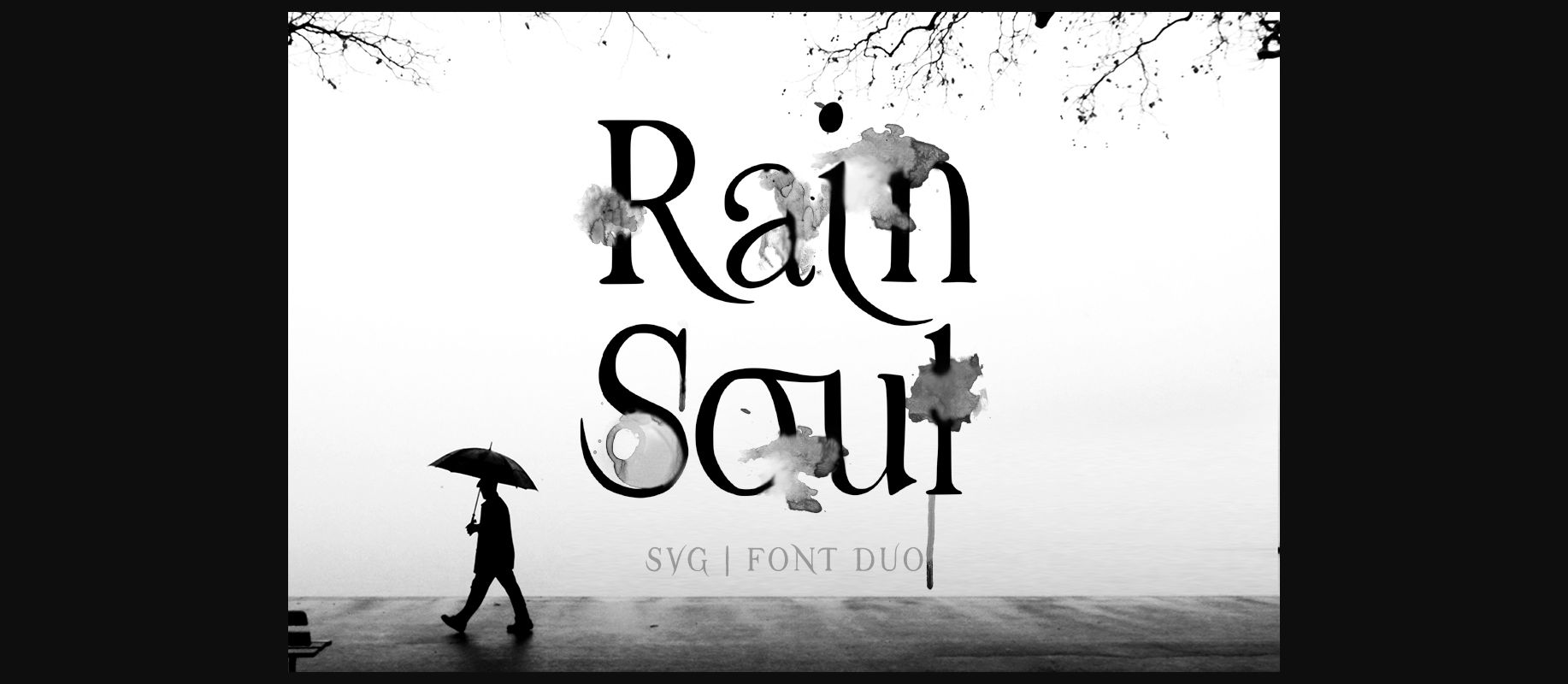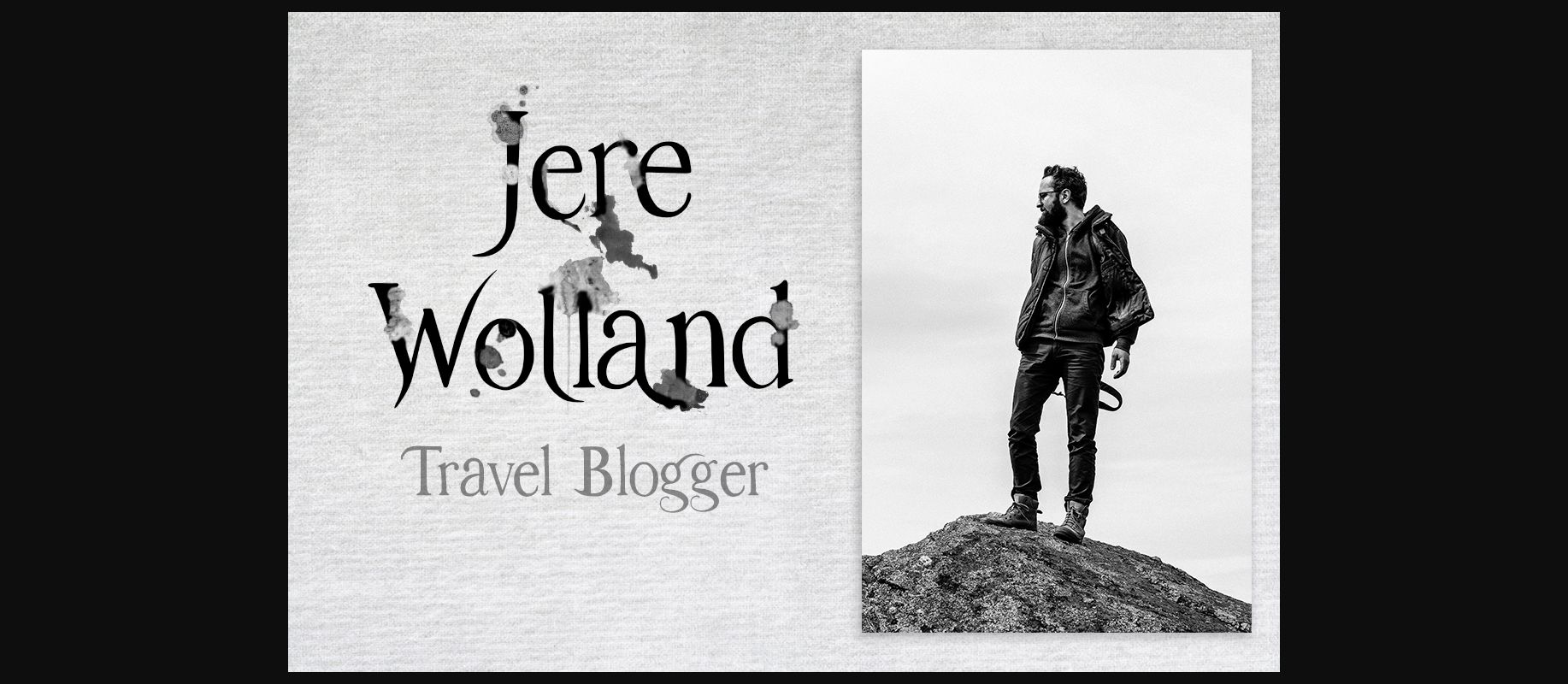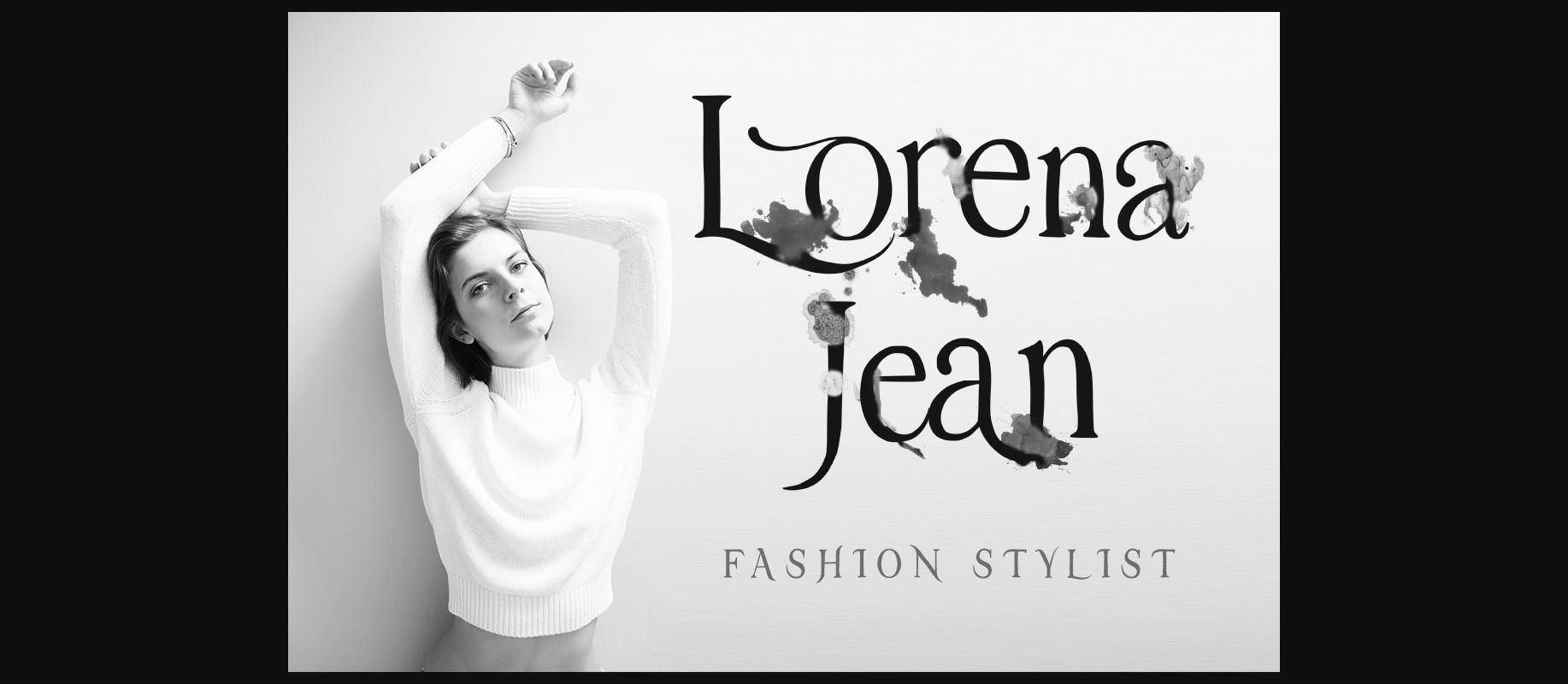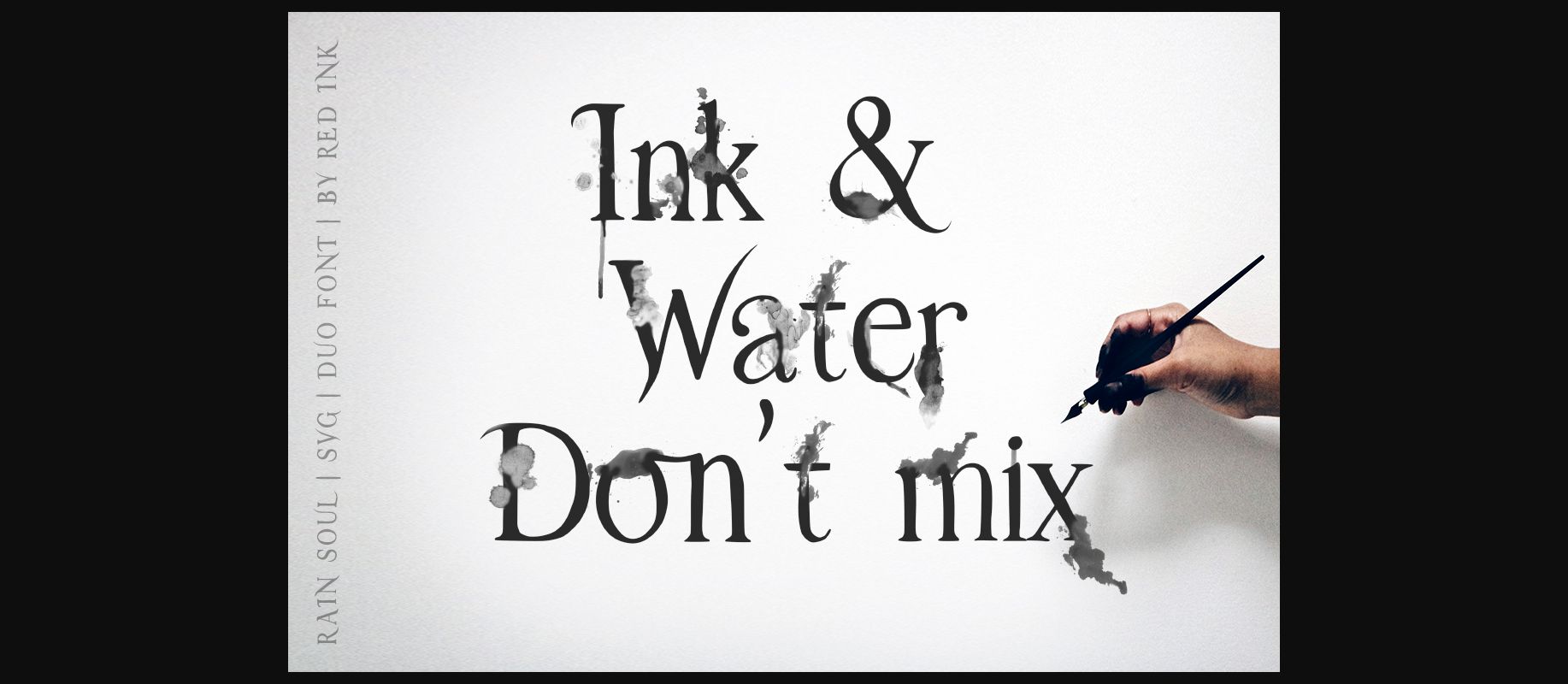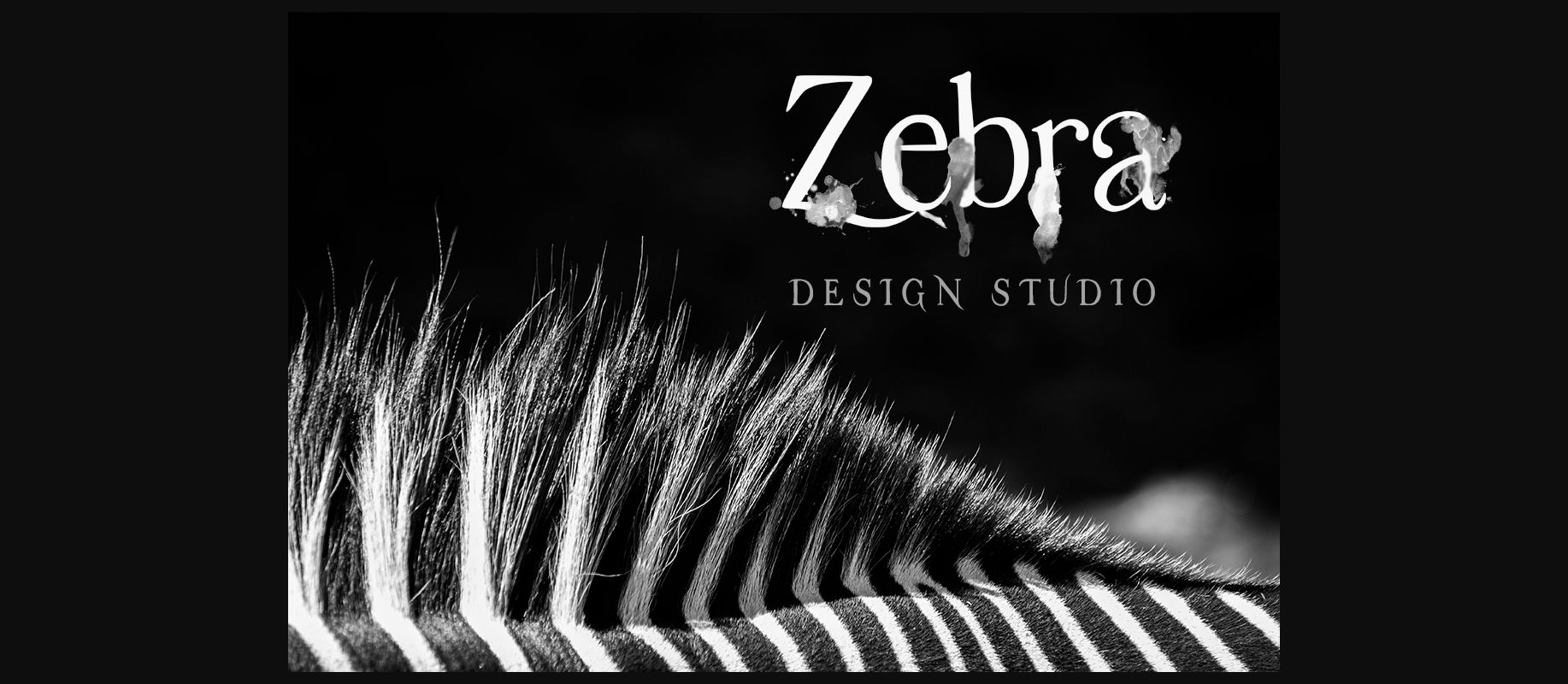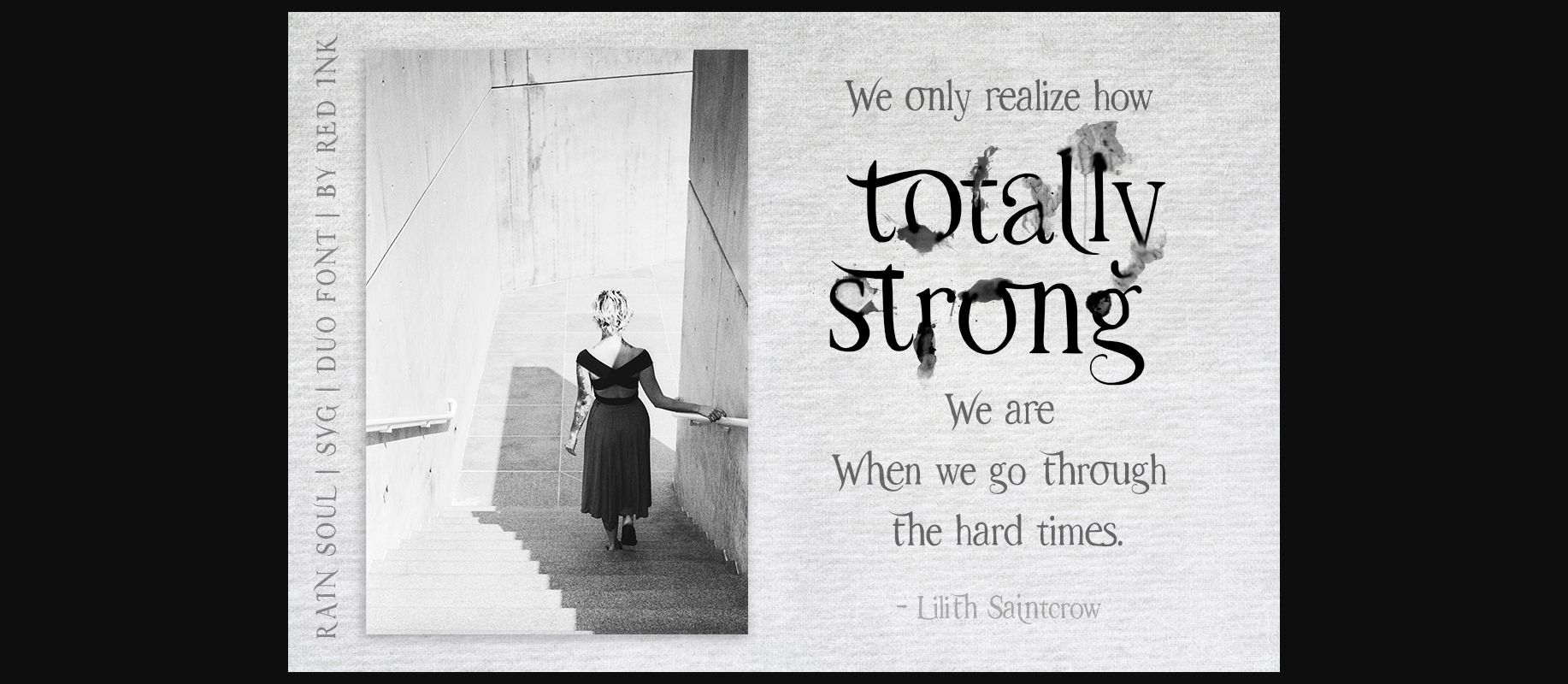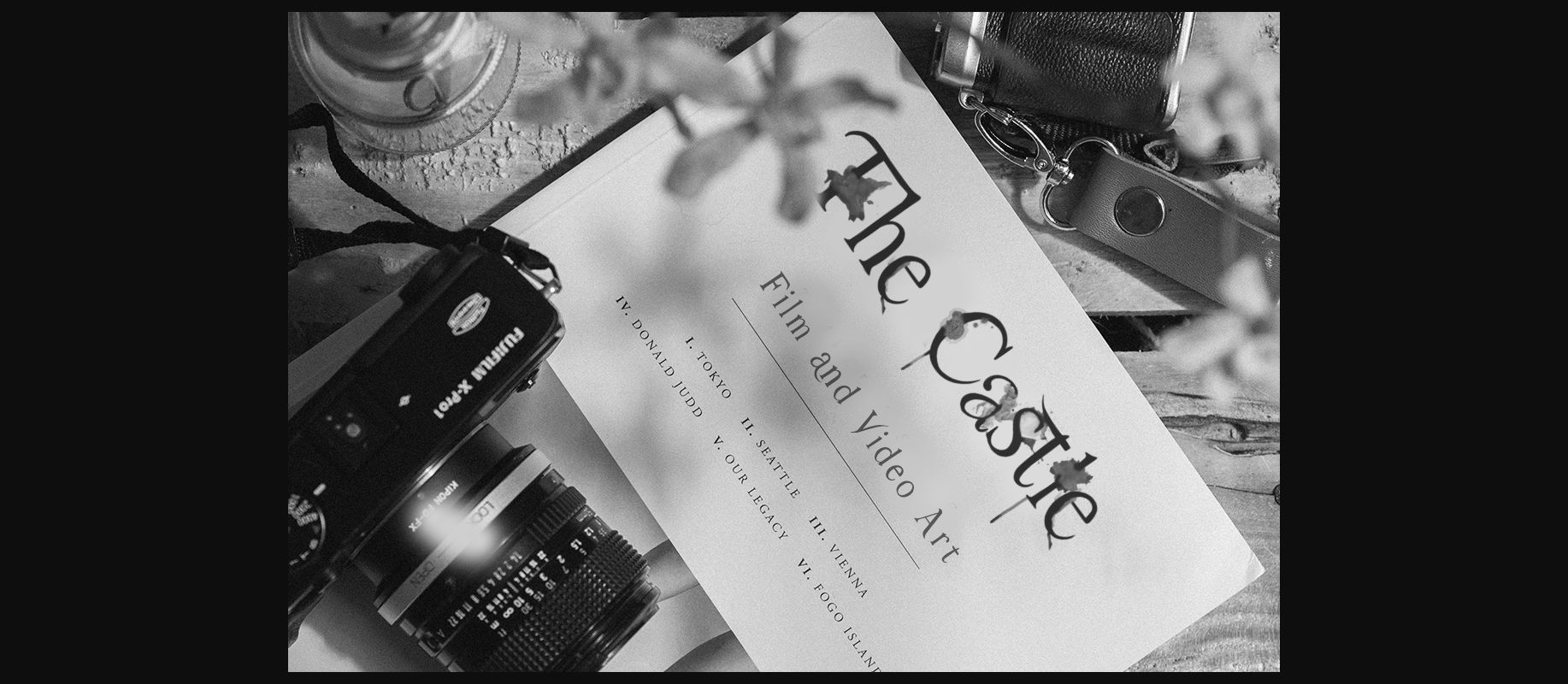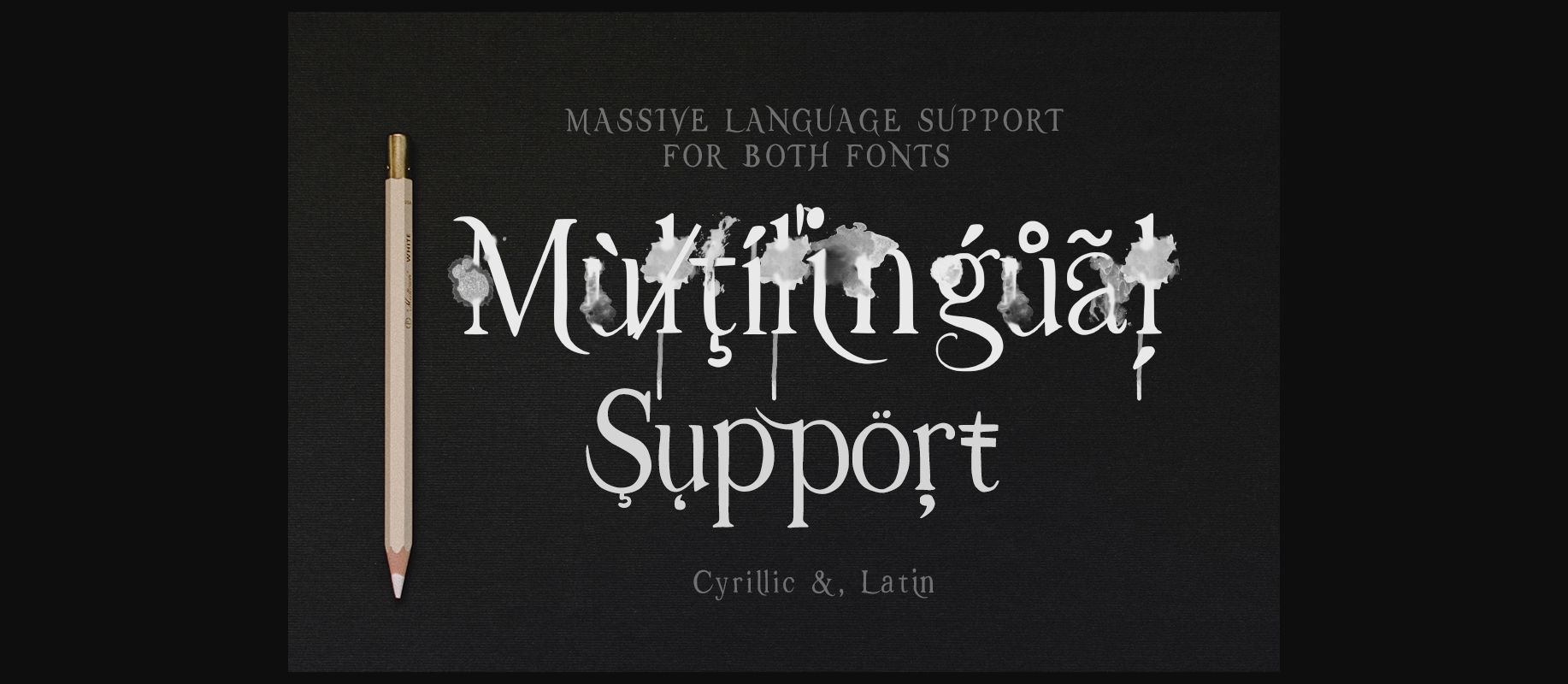
Rain Soul Font
About Rain Soul Font
Rain Soul includes hand drawn splashes and beautiful elements. It will add a unique and melancholic feel to any design project.